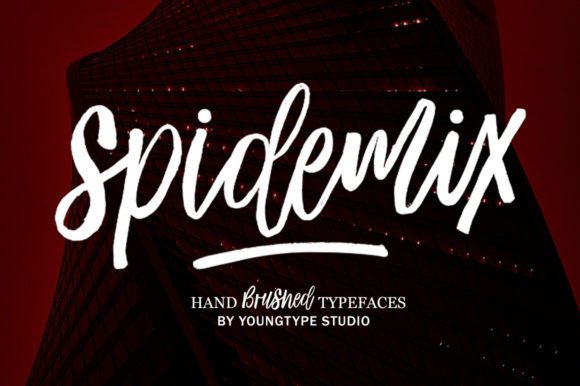
Unleash your creativity with Spidemix Fonts - the symphony of style for typography art!
Immerse yourself in the captivating world of Spidemix, a remarkable collection that brings together a symphony of modern, organic, and energetic fonts. Spidemix is not just a set of fonts; it's an artistic journey that will elevate your designs to new heights.
Crafted by the talented hands at Youngtype, Spidemix boasts an array of distinctive styles, each possessing its own captivating charm. From graceful script fonts that dance across the page to bold display fonts that command attention, Spidemix has the perfect font for every creative vision.
With Spidemix, the possibilities are limitless. Design eye-catching titles that leave a lasting impression, create elegant signatures that exude sophistication, and craft logos that capture the essence of your brand. Let your imagination run wild as you design wedding invitations that radiate romance, letterheads that convey professionalism, and nameplates that reflect your unique identity.
Spidemix's versatility extends beyond traditional design realms. Craft striking posters that demand attention, create badges that add a touch of personality, and design newsletters that engage and inform. Whether you're a seasoned designer or just starting your creative journey, Spidemix is your perfect companion, ready to transform your ideas into stunning visual masterpieces.
Experience the magic of Spidemix today and elevate your typography art to new heights!